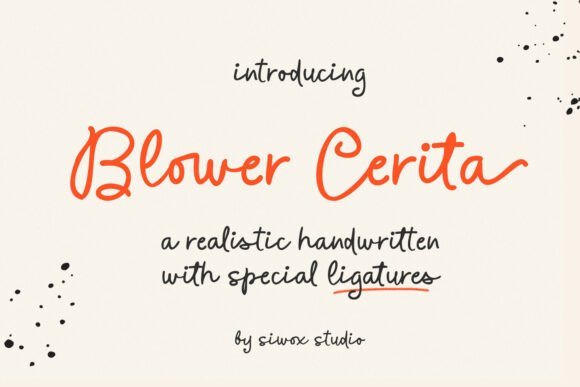
Bring Your Designs to Life with the Blower Cerita Font
Have you ever stared at a blank page, pencil in hand, and felt the urge to create something truly special? It’s a moment we’ve all experienced as designers – a spark of inspiration that sets our imagination ablaze. But sometimes, all it takes is the right tool to bring our ideas to life. Enter the Blower Cerita Font, a stunning, realistic handwritten font that’s perfect for adding a personal touch to any creative project.
With its versatility and charm, the Blower Cerita Font is a valuable addition to any designer’s toolkit. Whether you’re crafting logos, invitation cards, or home decor, this font is sure to elevate your designs and make them stand out from the crowd. By incorporating the Blower Cerita Font into your work, you’ll be able to add a unique, handmade feel to your projects, setting them apart from the ordinary.
Key Features of Blower Cerita Font
- Font Style: A unique, handwritten font designed to convey a sense of storytelling and creativity.
- Unique Characteristics: Features a dynamic, expressive feel with varying line widths and subtle imperfections, adding a touch of human touch to digital text.
Blower Cerita Font Review
Overall, I found “Blower Cerita Font” to be a visually appealing typeface. ✨ The font’s unique blend of traditional and modern elements caught my attention, and I appreciate the effort put into creating a distinctive design.
The font’s versatility is one of its strongest points. ✨ It can be used for a wide range of applications, from body text to headings, and even as a title font. The font’s legibility is also commendable, making it suitable for both digital and print materials.
- ⚠️ The font’s character set is limited, which may not be ideal for languages that require a wide range of characters.
- ⚠️ The font’s weight and style options are somewhat limited, which may restrict its use in certain design applications.
- ⚠️ The font’s kerning and spacing may require some adjustments to achieve optimal results.
In conclusion, while “Blower Cerita Font” has its limitations, I believe it is a solid addition to any designer’s toolkit. With some careful planning and adjustment, this font can add a unique touch to your designs.
Tips for Getting the Most Out of Blower Cerita Font
Use Blower Cerita Font for titles, headings, and other emphasis text to add a unique touch to your designs.
Experiment with different font sizes and colors to create a visually appealing effect.
Combine Blower Cerita Font with other fonts to create a cohesive and engaging design.
Use Blower Cerita Font for:
Designing book covers and titles.
Creating posters and flyers.
Developing branding materials, such as business cards and logos.
Alternatives to Blower Cerita Font for Designers
Pacifico is a beautiful, elegant font perfect for creating a luxurious and sophisticated look. It’s ideal for use in high-end branding, wedding invitations, and other special occasion materials. Compared to Blower Cerita Font, Pacifico has a more refined and polished feel, making it suitable for more formal designs.
Great Vibes is a modern, cursive font that’s great for creating a playful and friendly atmosphere. It’s perfect for use in social media graphics, advertising, and other materials that require a fun and approachable tone. Compared to Blower Cerita Font, Great Vibes has a more relaxed and casual feel, making it suitable for younger audiences and more informal designs.